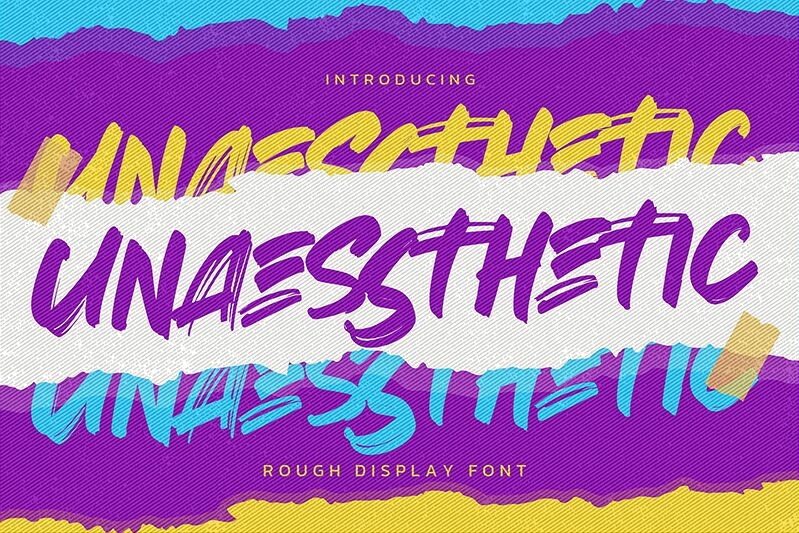
Unaessthetic
Unaessthetic, envisioned by the creative minds at Gassstype, is a bold brush font that encapsulates the essence of raw artistry. This Rough Display Font boasts an authentic style, characterized by its dramatic movement and the semblance of being penned hastily with a confident hand. Its distinctive texture breathes life into any project, making it an ideal choice for designers aiming to infuse modernity, authenticity, and a touch of whimsy into their work.
The versatility of Unaessthetic lies in its ability to elevate a wide array of creative endeavors-from logos that demand attention to posters that speak volumes without uttering a word. It shines in branding initiatives, packaging designs that need to stand out on shelves, heartfelt greeting cards, engaging websites, captivating photography overlays, and much more. With each stroke exuding natural elegance and uniqueness, Unaessthetic is more than just a font-it's a striking tool for expression in our visually-driven world.